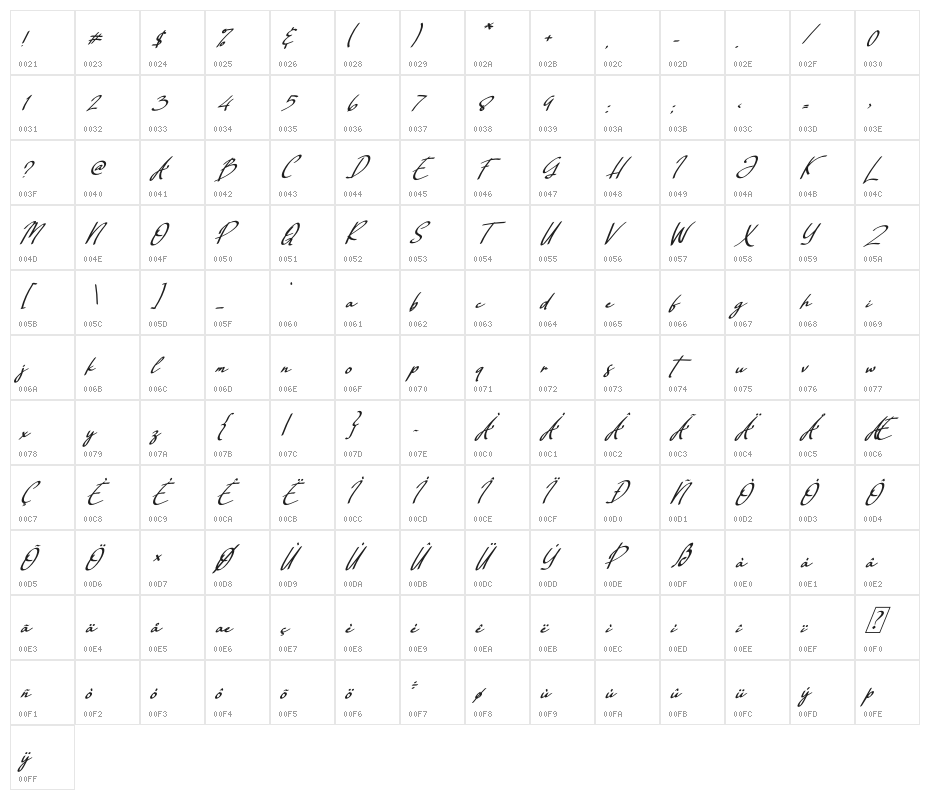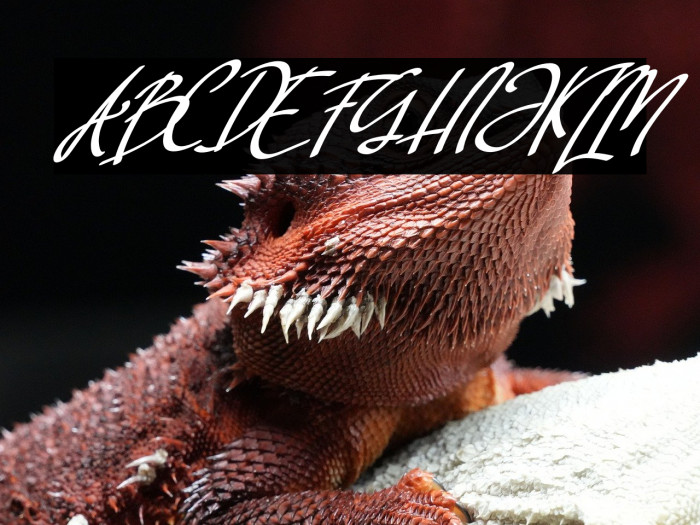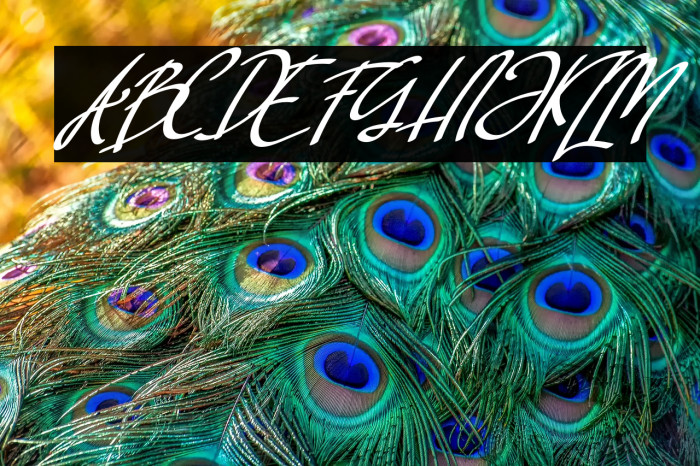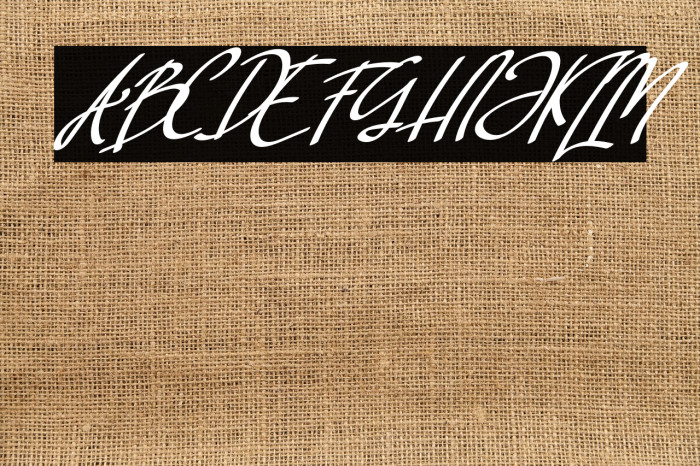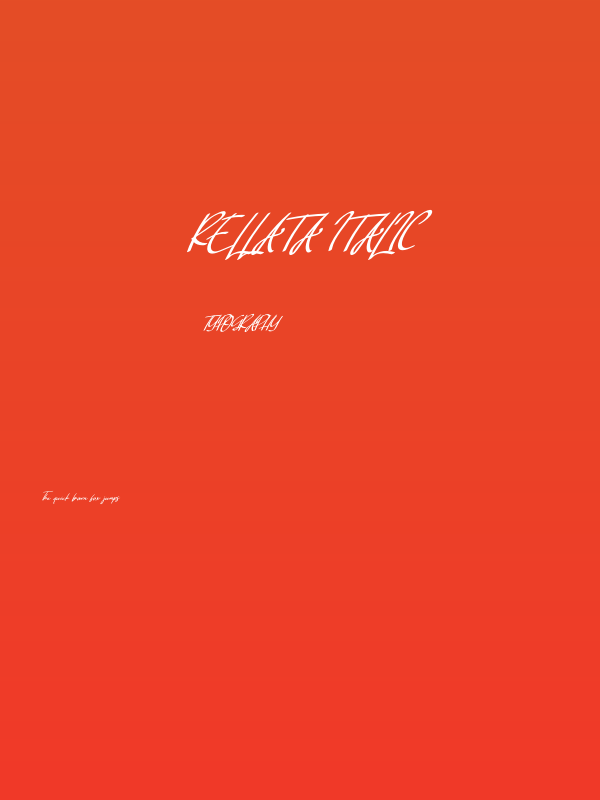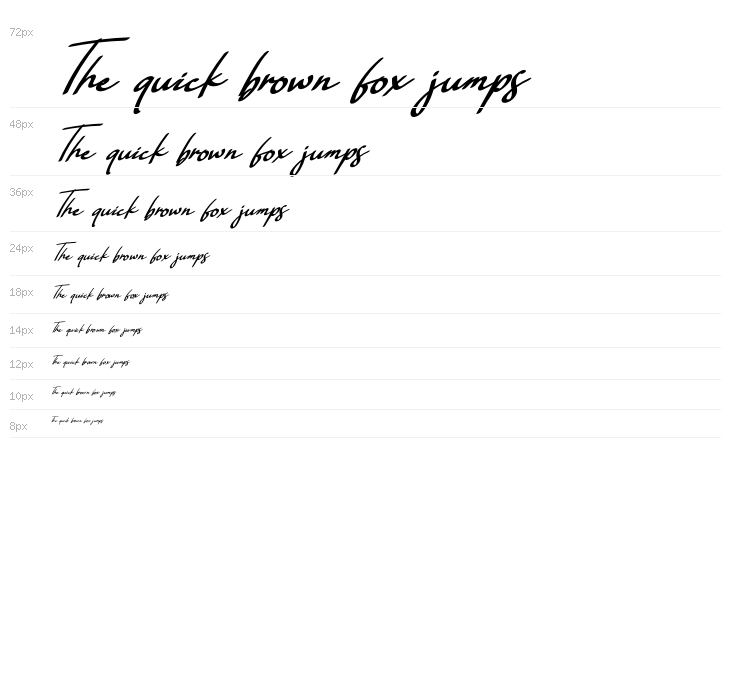
Rellata Italic Font
Rellata Italic Description
This font exudes a dynamic and expressive style, characterized by its fluid, cursive strokes and elegant slant. The letters are interconnected, creating a seamless flow that mimics natural handwriting. The uppercase letters are bold and prominent, while the lowercase letters maintain a consistent rhythm and balance. The numerals and special characters are crafted with the same attention to detail, ensuring a cohesive look across all elements. This font's artistic flair makes it suitable for projects that require a personal touch or a sense of sophistication.